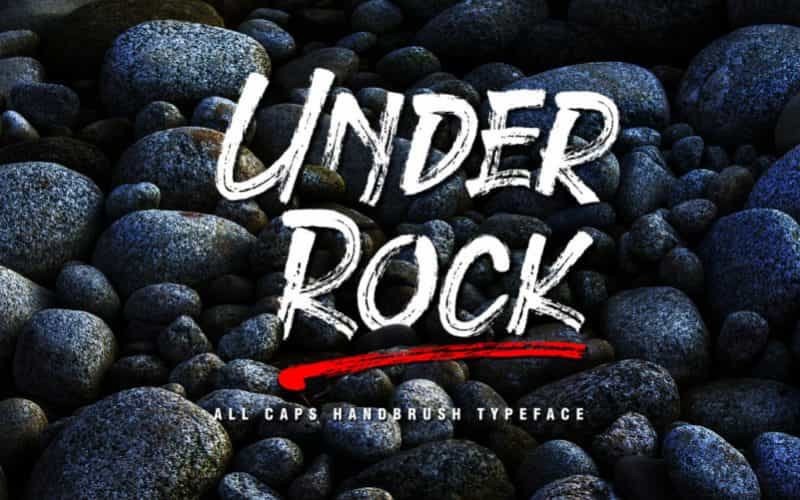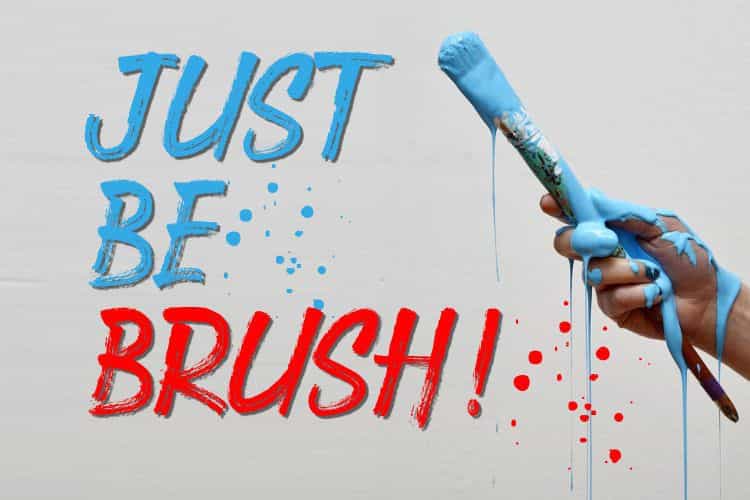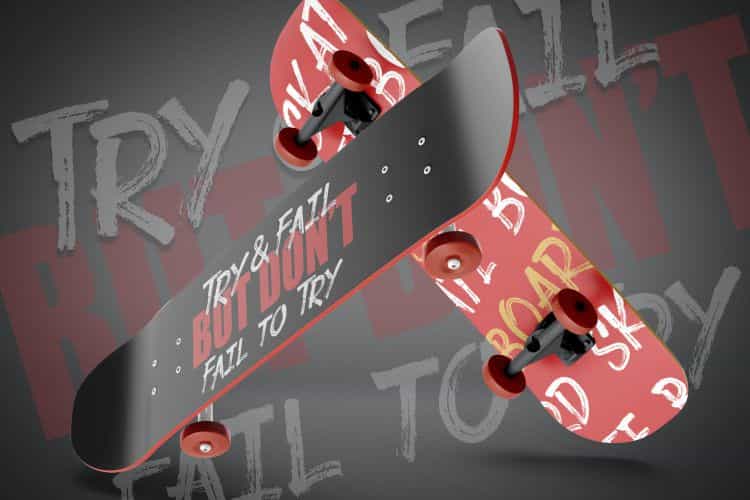
Under Rock is a hand brush font with a natural look, all caps and sans-serif. It will give that real, gritty and adventurer feel to any creative project that you have in mind!